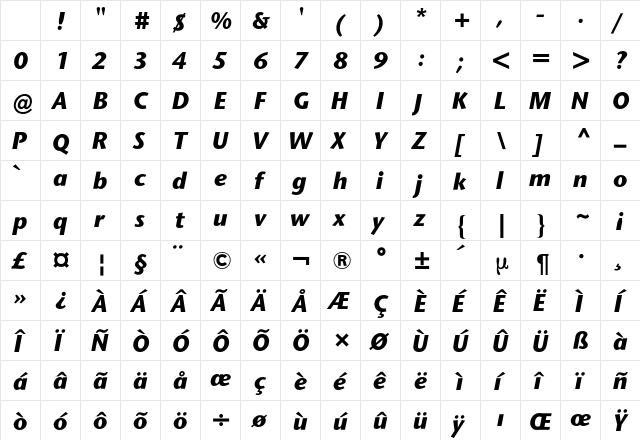
Stone Sans BQ Regular Free Font
Stone Sans BQ Regular
Design Context for Stone Sans BQ
Stone Sans BQ is a composed and adaptable typeface that performs quietly and consistently across a wide range of design contexts.
Pro Tip: Use Stone Sans BQ in both headline and body roles to test its range before committing to a single application.